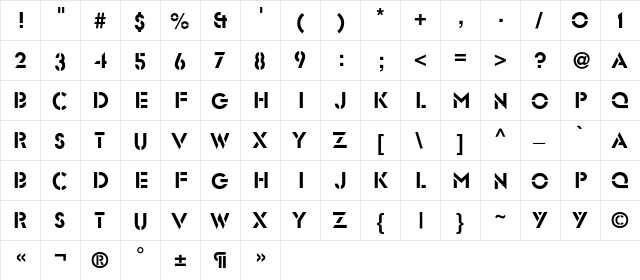
Glasten Regular
Design Context for Glasten Typeface
Glasten is a composed and adaptable typeface that performs quietly and consistently across a wide range of design contexts.